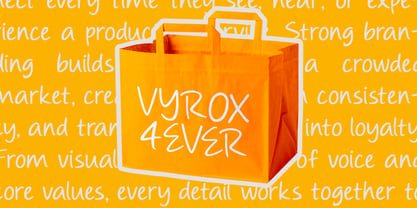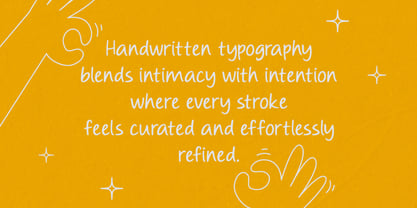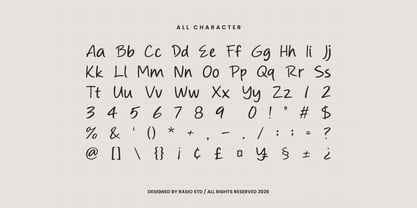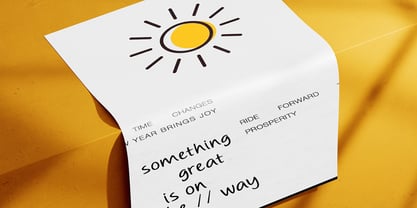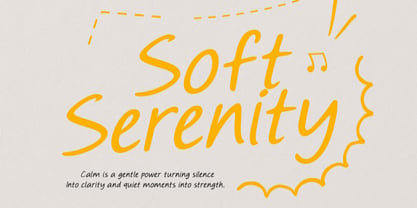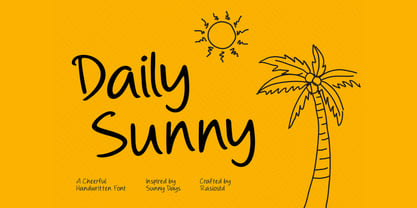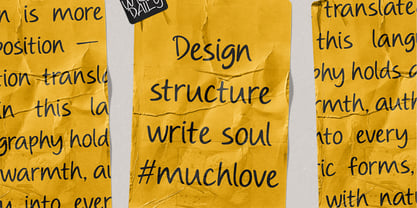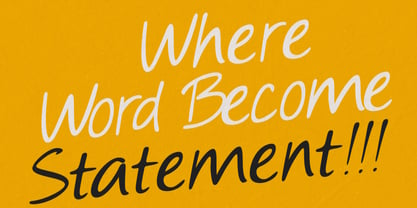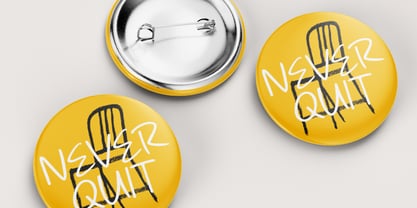
Daily Sunny
by Rasio Studio
The Daily Sunny Font Family was designed by Fajar Indra and published by Rasio Studio. Daily Sunny contains 1 styles. More about this family
Daily Sunny is a cheerful handwritten script font inspired by bright days and relaxed creative moments. The typeface features smooth flowing strokes, playful curves, and natural handwritten rhythm that bring a friendly and approachable personality to any design. Its casual style makes typography feel warm, expressive, and full of character. Daily Sunny is designed for creative and friendly visual communication where warmth and personality are important. The playful handwritten style works beautifully for branding, social media graphics, greeting cards, and lifestyle designs. It is also perfect for posters, packaging, creative marketing visuals, and personal projects that benefit from expressive and approachable typography.
Designers: Fajar Indra
Foundry: Rasio Studio